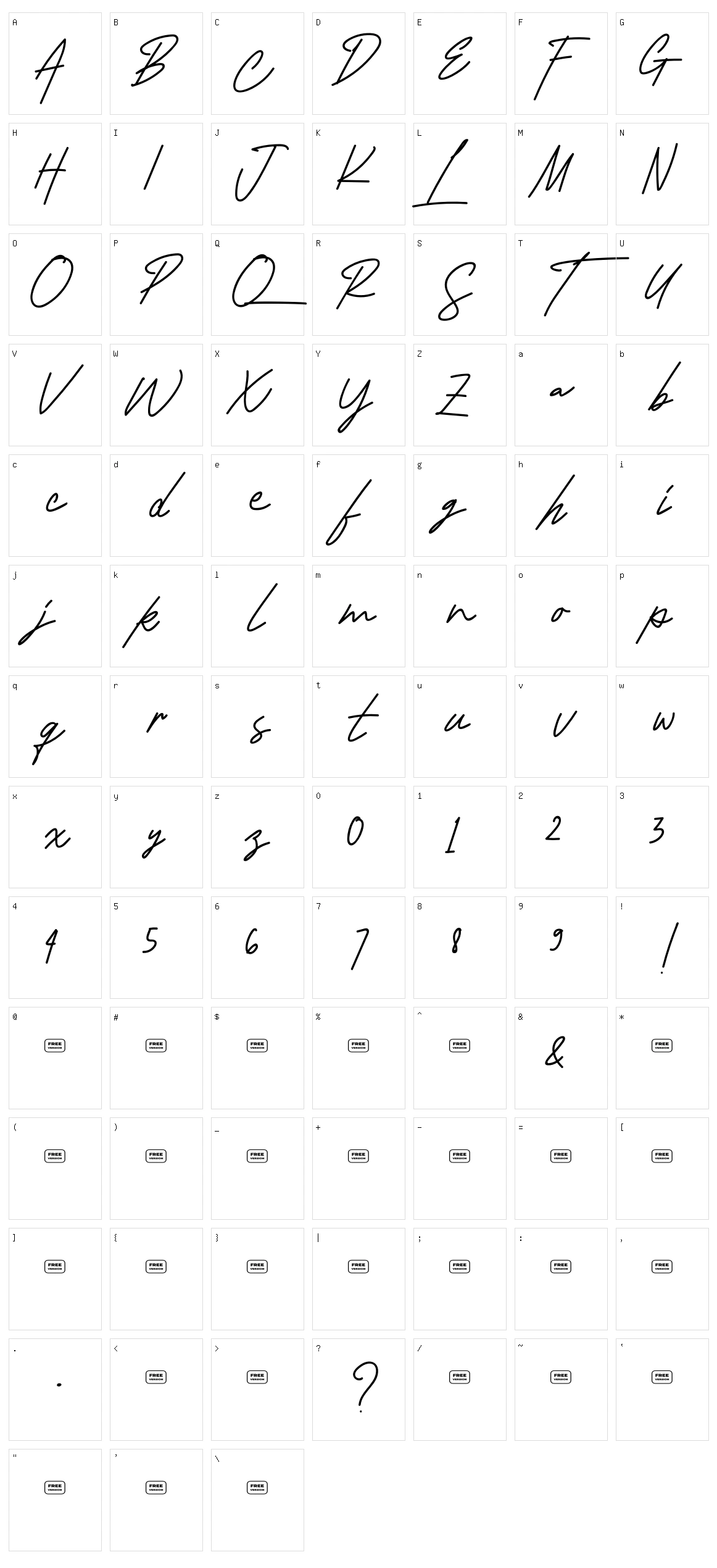
The free font Sweet Beans is carefully designed by Typefactoryco, showcasing a thoughtful balance of creativity and usability and falls under the Script font style. When you download the ZIP file, it contains only 114.26 KB of font files, making it lightweight and quick to download. Please review the license details below to understand permitted usage and distribution rights. If license information is not available, we recommend using this font for personal projects only or contacting the author directly for commercial usage permissions.